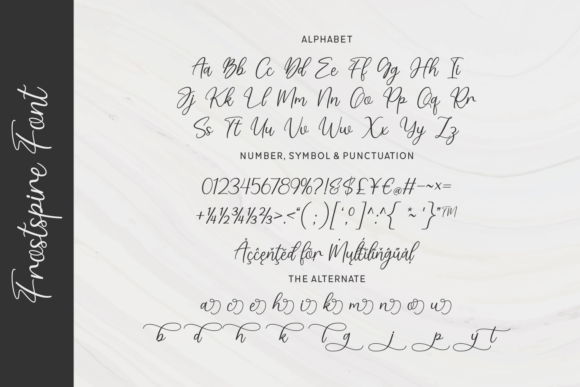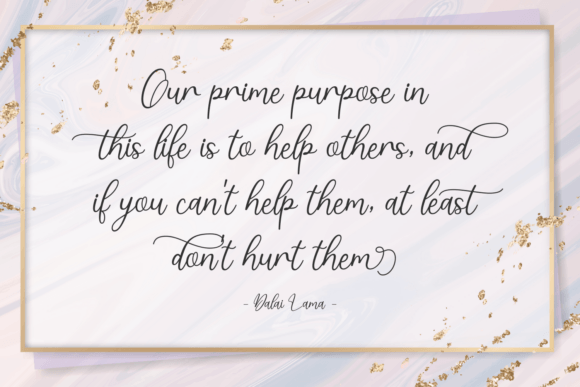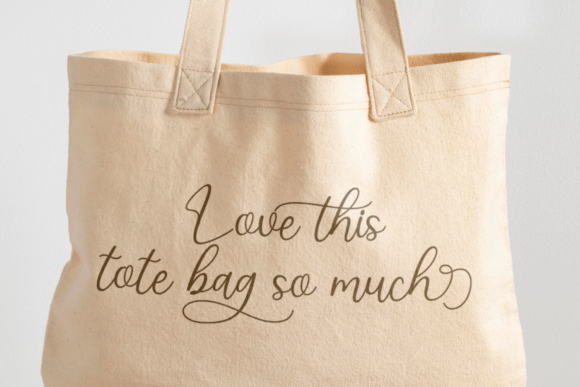
Introduction to Frostspire Font
As a designer, have you ever felt the rush of excitement when you stumble upon a perfect font to elevate your creative project? The moment when all the pieces come together, and your design takes on a life of its own? For many of us, that moment is elusive, but with the right tools, it can be a reality. Enter the Frostspire Font, a stunning script font that will take your designs to the next level.
This elegant font boasts stunning swashes and flowing lines that exude grace and sophistication, making it perfect for a wide range of projects, from wedding invitations to branding and social media posts. Whether you’re working on a free download or a paid design resource, Frostspire Font is a valuable addition to any designer’s toolkit.
Frostspire Font
- High-quality design resource ideal for creative projects, including graphic design, digital art, and more.
- Features a transparent background, allowing for easy layering and manipulation in design software.
- Compatible with a range of resolutions, including high-resolution displays and print materials.
- Unique, hand-drawn design aesthetic with intricate details and textures, making it a standout choice for creative projects.
- Available in a range of sizes, including scalable vector graphics (SVG) for easy resizing and customization.
Honest Review: Frostspire Font
As a designer, I’m always on the lookout for high-quality design resources to enhance my creative projects. Recently, I had the chance to explore the Frostspire Font, and I must say, it’s been a pleasant experience. Here’s my honest take on this font.
- Elegant and modern design that can add a touch of sophistication to any project
- Transparent background, making it easy to layer with other design elements
- High-quality vectors, ensuring crisp and clear typography even at large sizes
- May not be suitable for projects that require a more playful or casual tone
- Limited character set, which might be a concern for designers who need a wide range of characters
Overall, I’m impressed with the Frostspire Font. Its modern design and high-quality vectors make it an excellent addition to any designer’s toolkit. While it may have some limitations, it’s still a valuable resource for creative projects that require a touch of elegance.
Frostspire Font
Tips for Getting the Most Out of Frostspire Font
To get the most out of the Frostspire Font, use it on a transparent background to give your designs a clean and modern look. Experiment with different font sizes and styles to create a unique visual identity.
Glacier Font
Glacier Font is a modern, sans-serif font featuring a sleek and transparent design. It is ideal for use in design projects requiring a clean and minimalist look, such as business cards, brochures, or any other project that needs a touch of sophistication. When to use: Modern designs, minimalist themes, and clean typography. Compared to Frostspire Font, Glacier Font offers a more modern and streamlined look, ideal for designs that require a touch of elegance.
Q: Is Frostspire Font suitable for high-quality print projects?
Yes, Frostspire Font is designed to meet high-quality print standards. The font’s crisp lines, precise shapes, and carefully crafted letterforms ensure that it will look stunning on paper or other print materials.